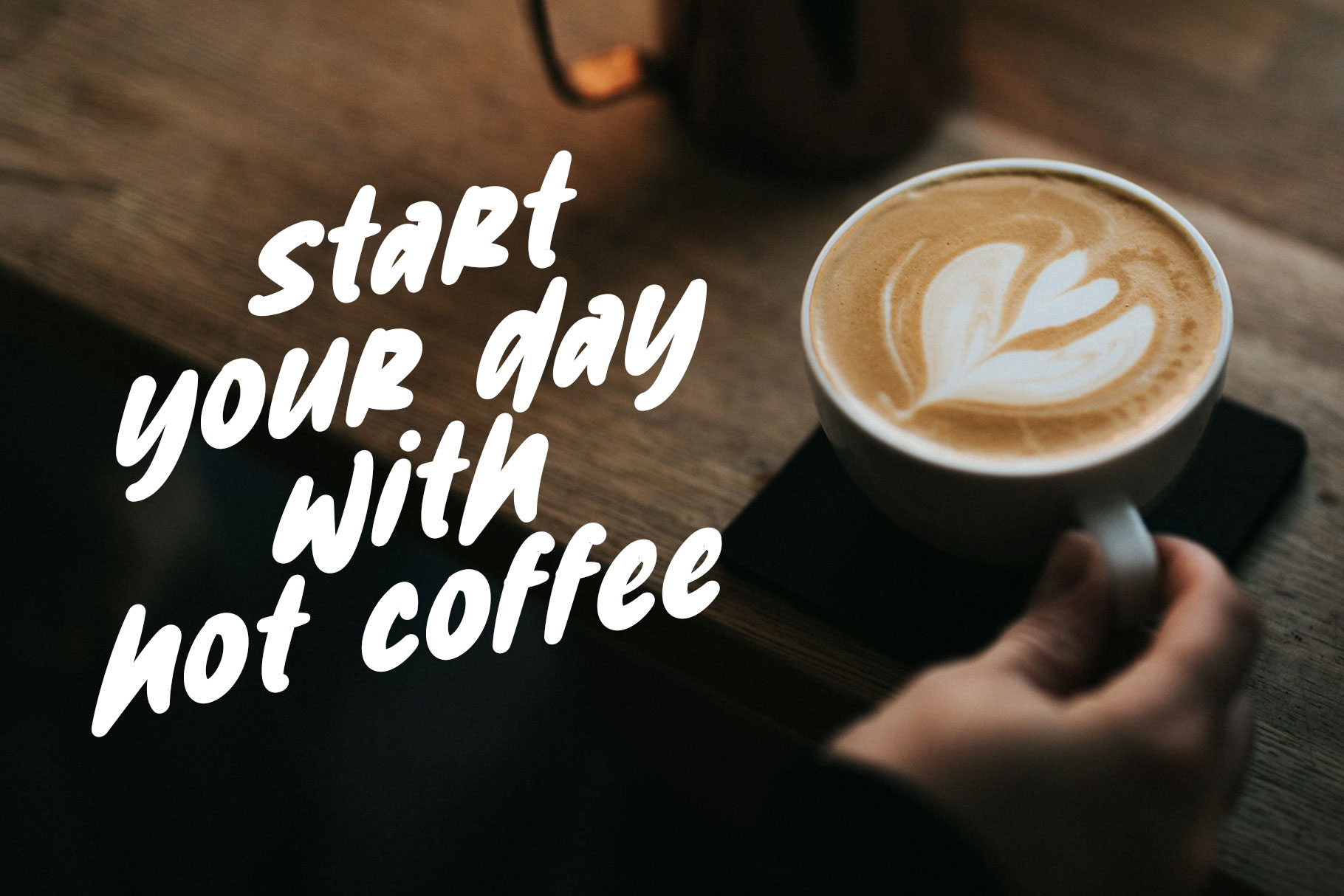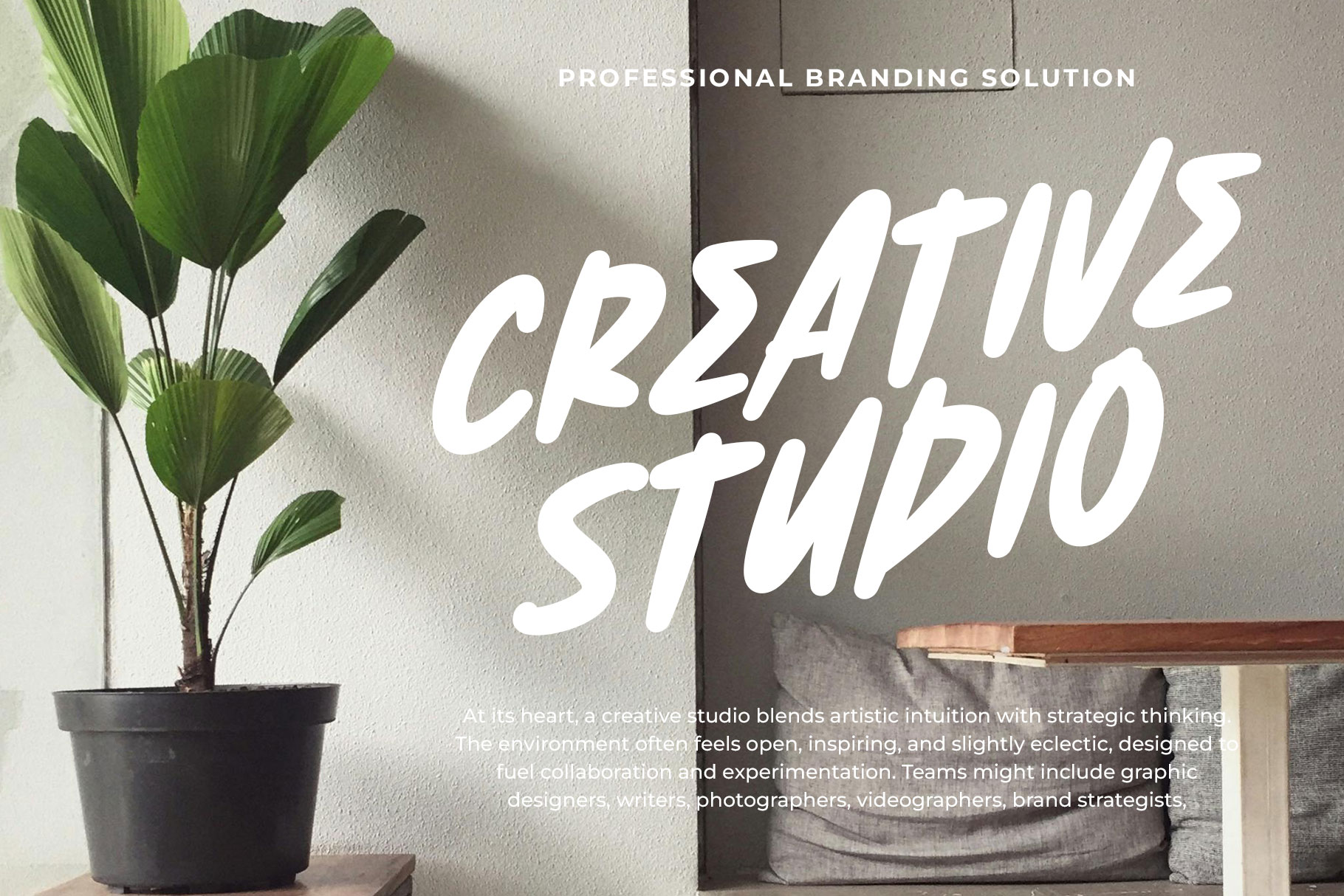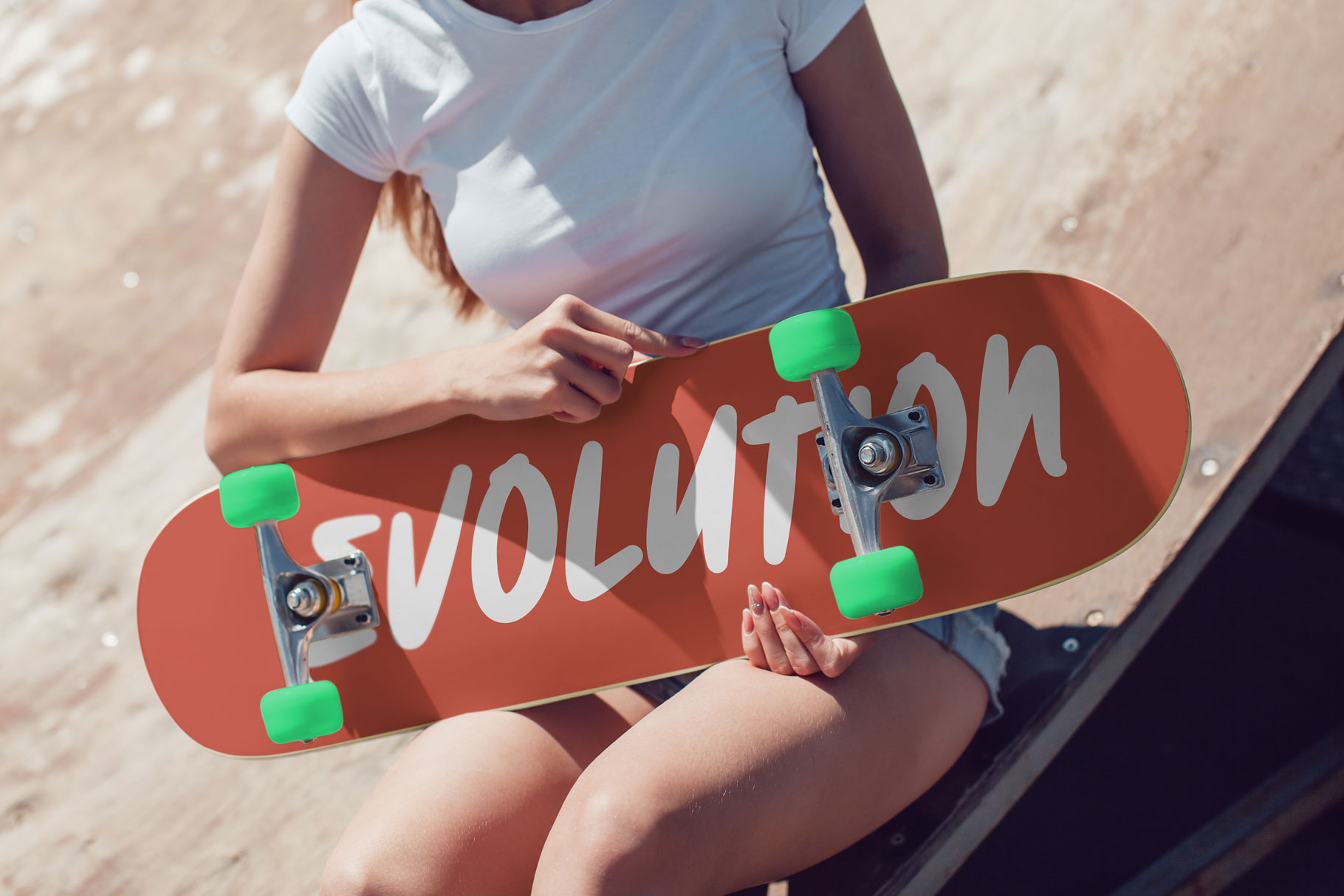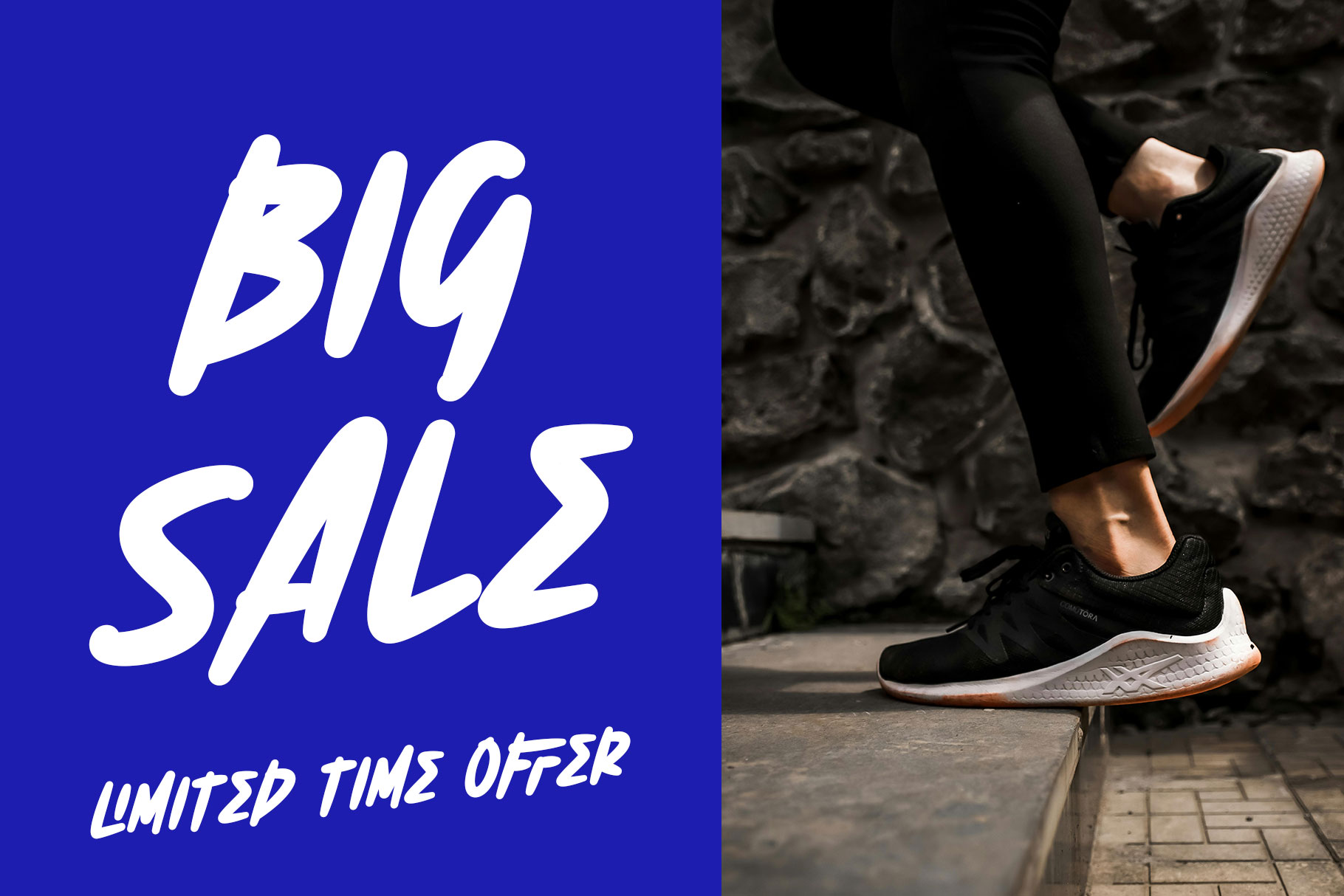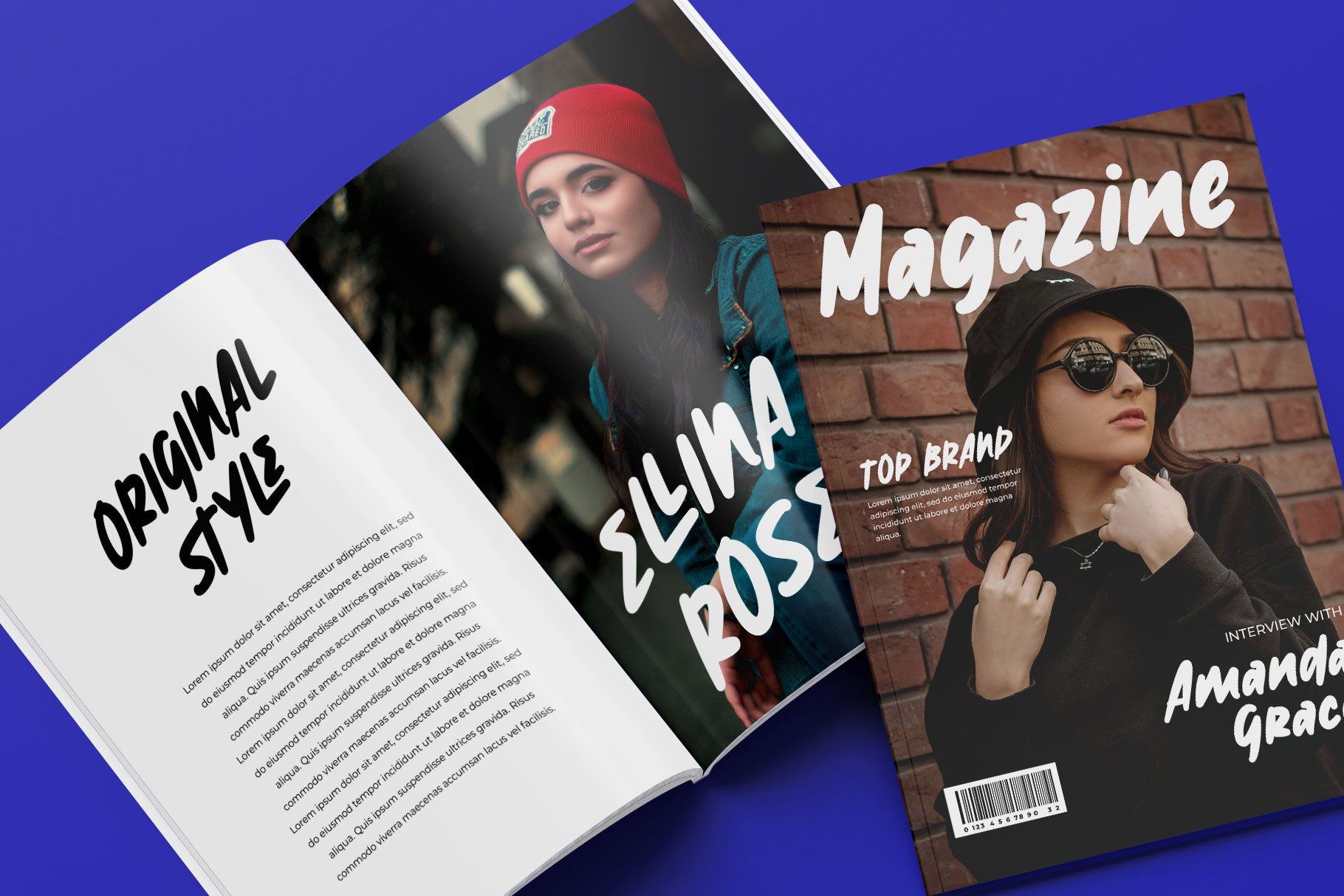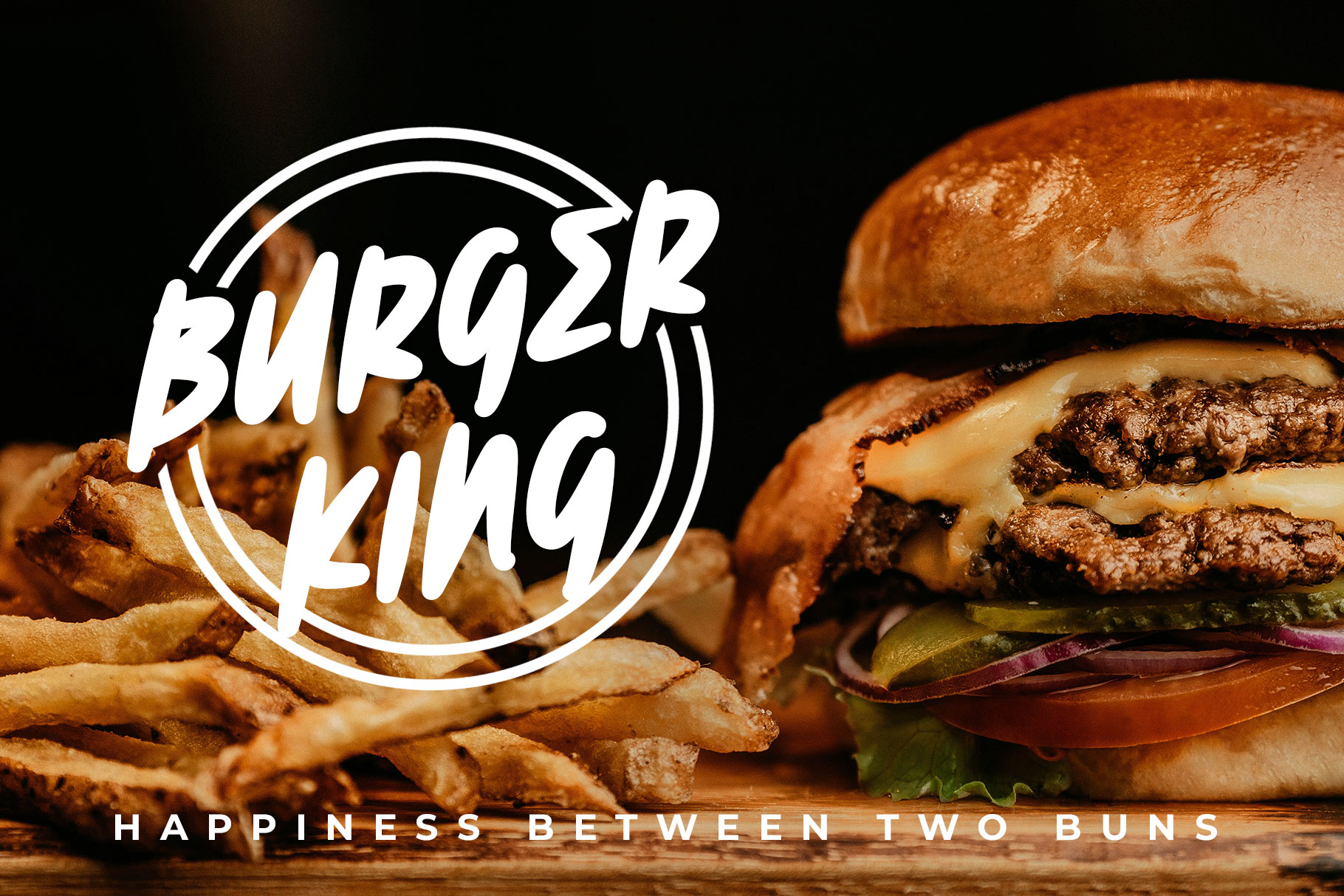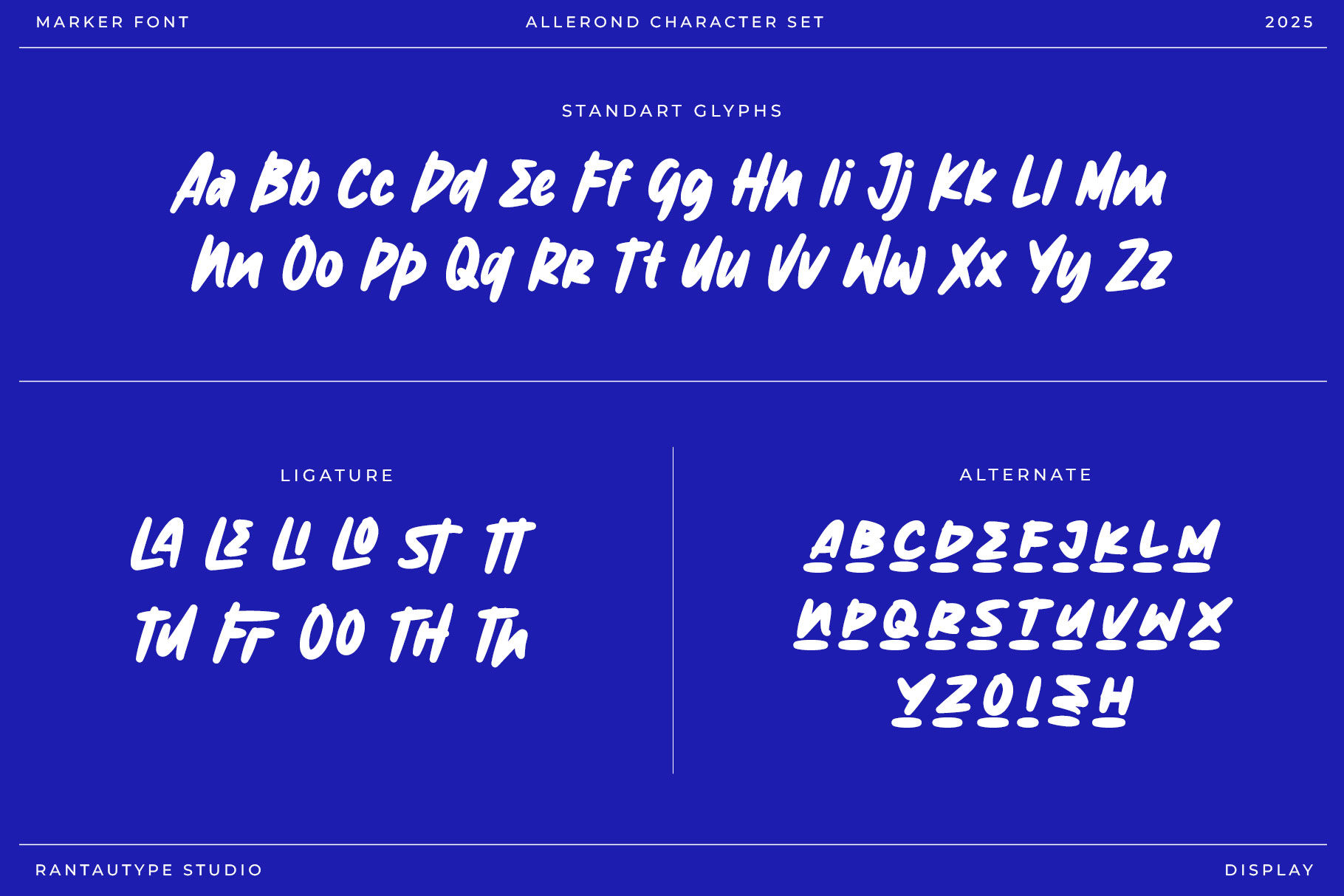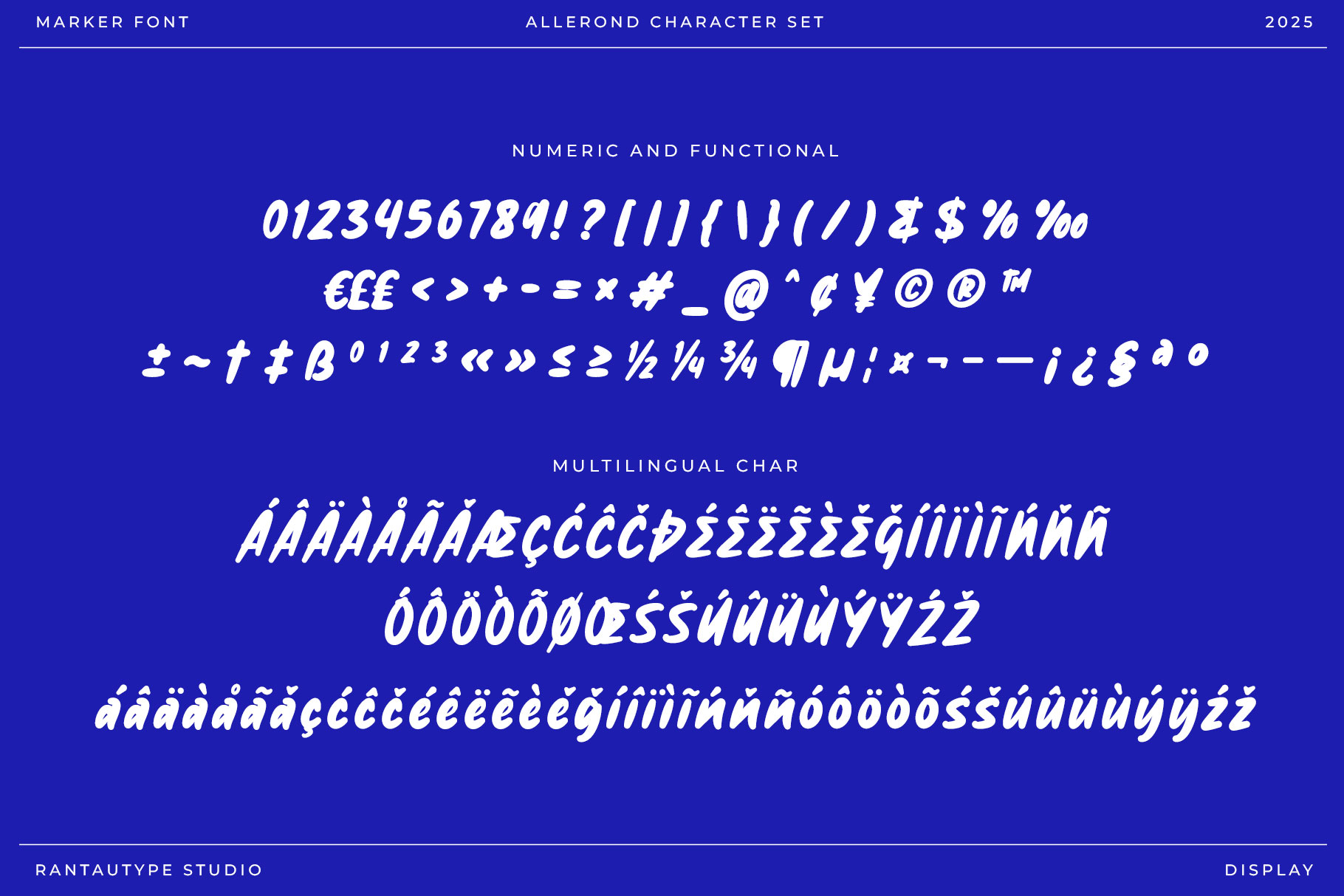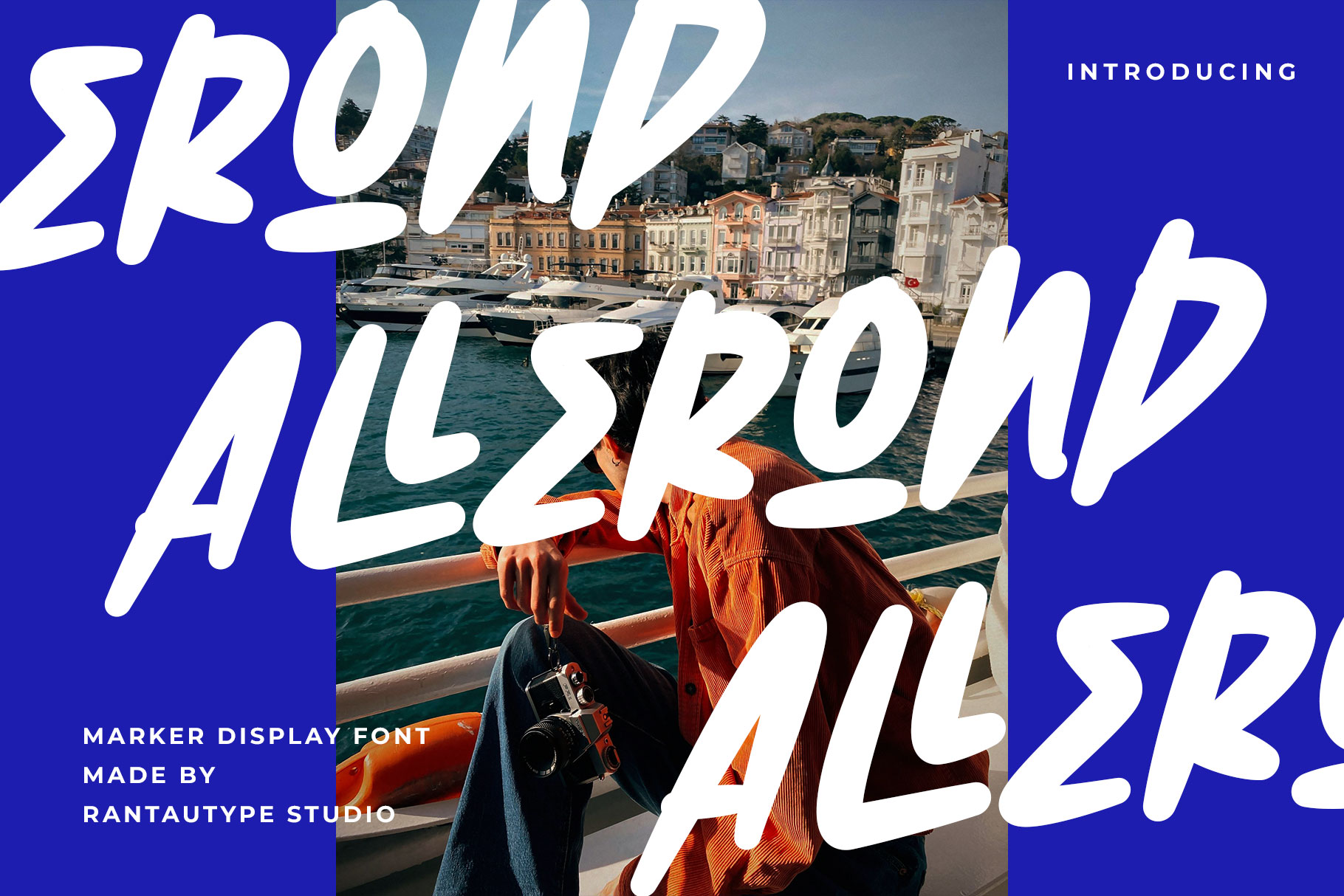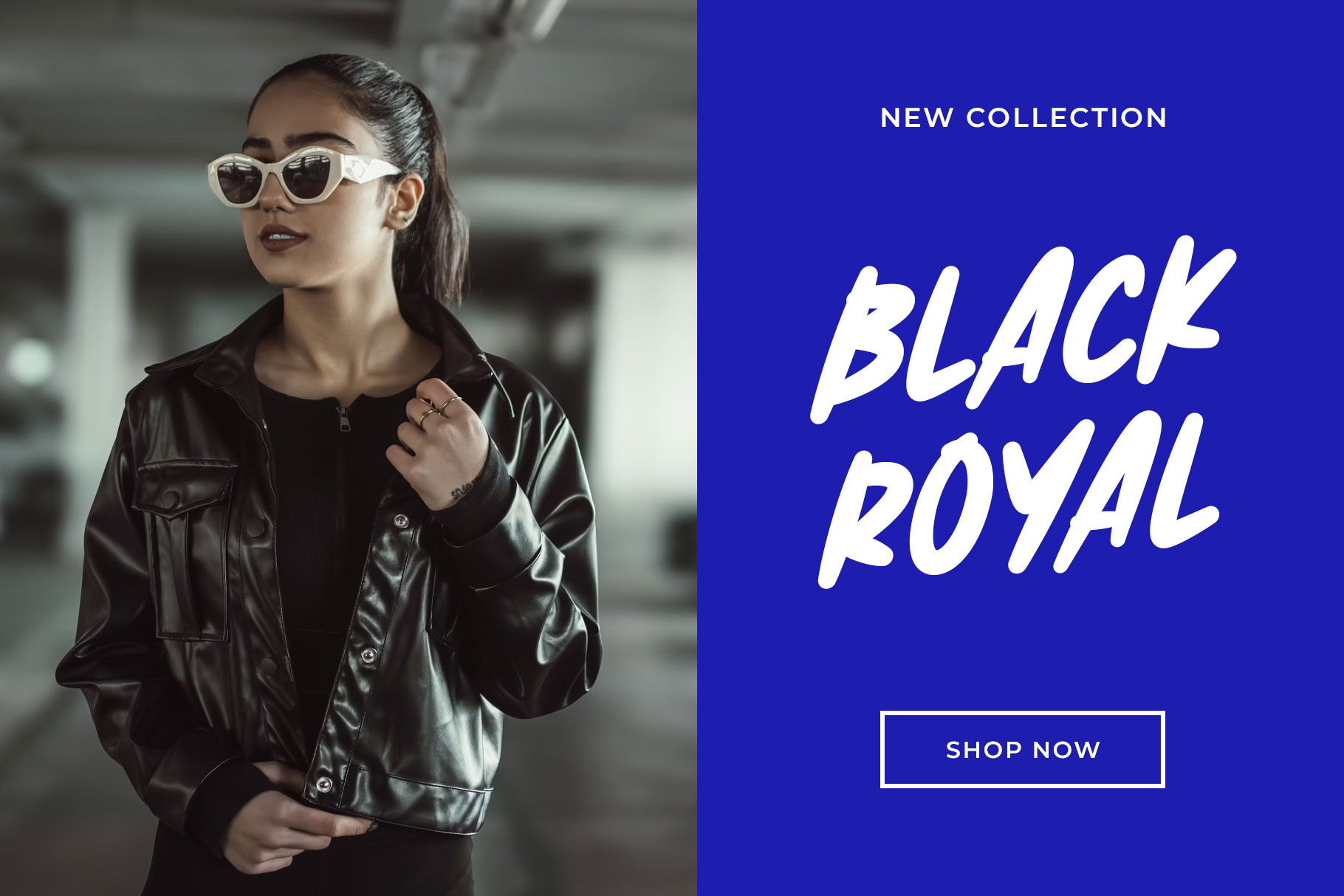
Allerond Marker Display Font
Allerond is marker display font inspire by energetic and expressive visual street style. Allerond come with personal hand draw with authentic character.
Allerond is a perfectly choice for any creative endeavor, creating, modern, chic, lifestyle design such as logotype, title, cover, branding, invitations, wedding designs, display and magazine, social media posts, advertisements, printed quotes, product packaging, corporate brand, product designs, labels, photography, watermarks, special events and any other project with modern touch.